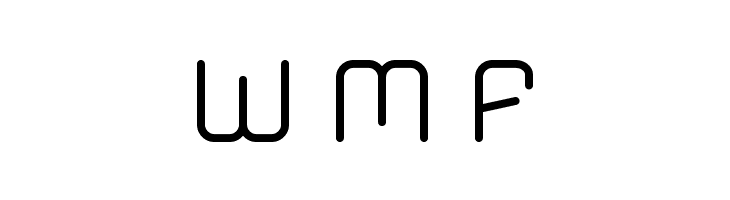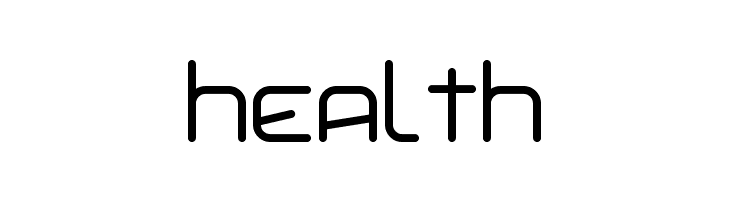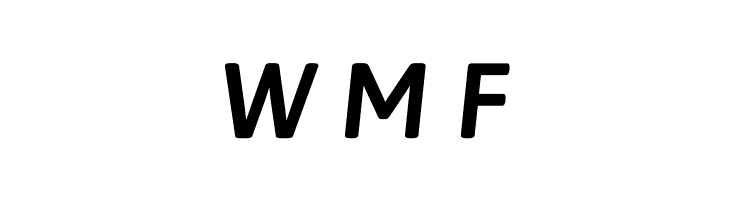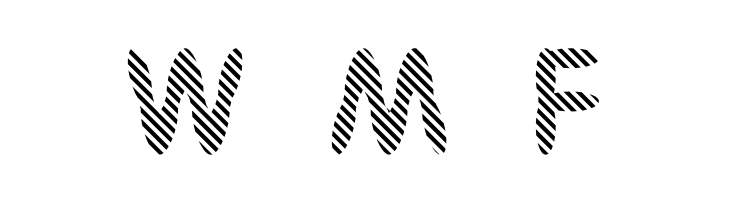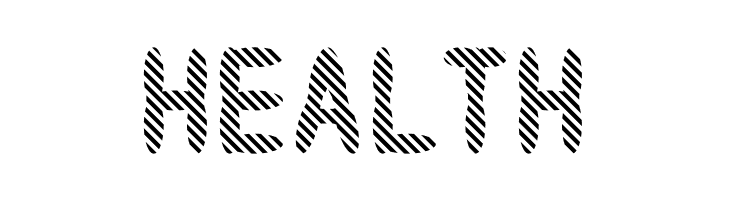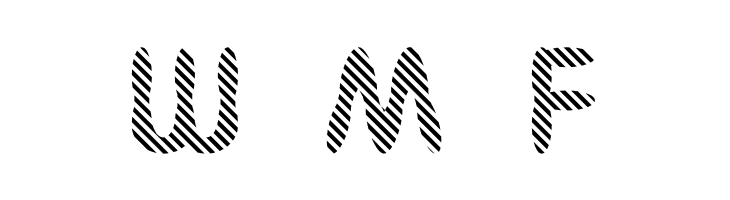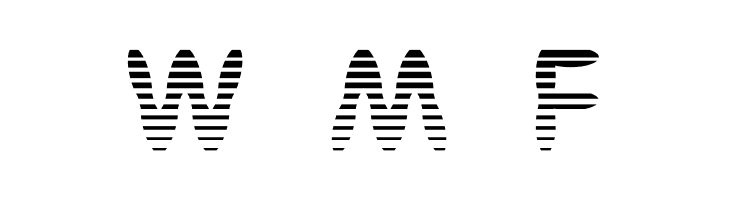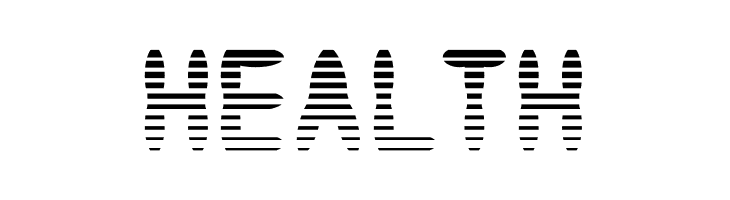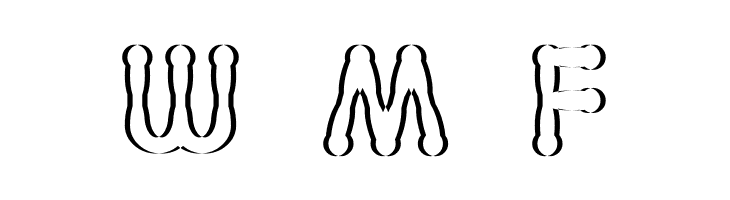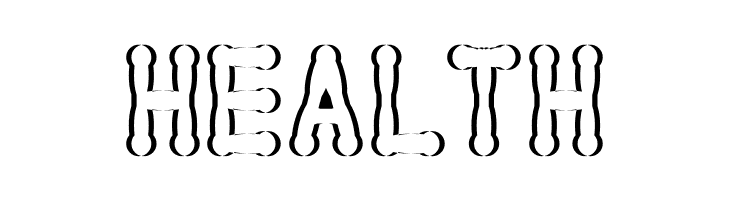
A modern, geometric font with rounded edges and a bold weight.
A modern, semi-bold sans-serif font with rounded edges and uniform stroke width.
A modern, italic sans-serif font with medium weight and normal spacing.
A modern sans-serif font with semi-bold weight and italic style.
A modern, condensed sans-serif font with clean lines and excellent legibility.
A modern, italic sans-serif font with a clean and dynamic style.
A bold, decorative font with diagonal stripes for a dynamic look.
A bold, striped font with a modern, industrial aesthetic.
A bold, striped font with a futuristic and digital aesthetic.
A bold, playful font with wavy outlines and a retro-modern vibe.